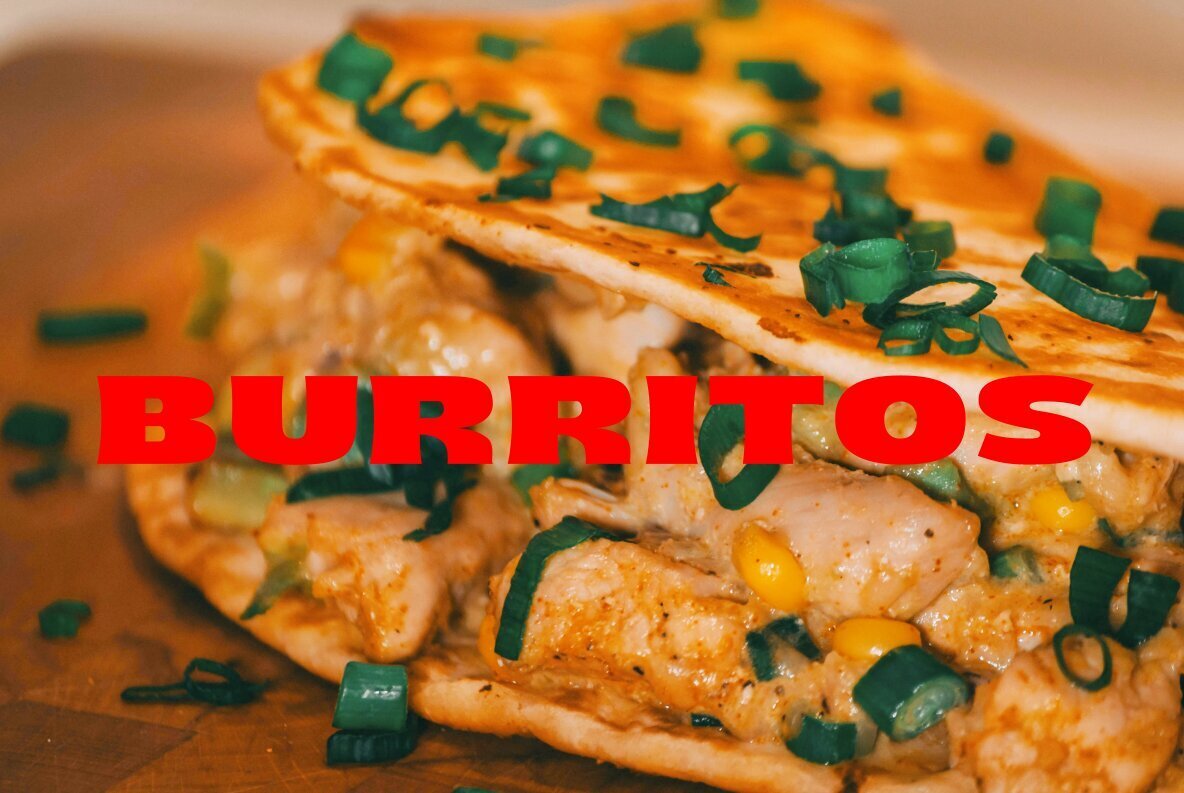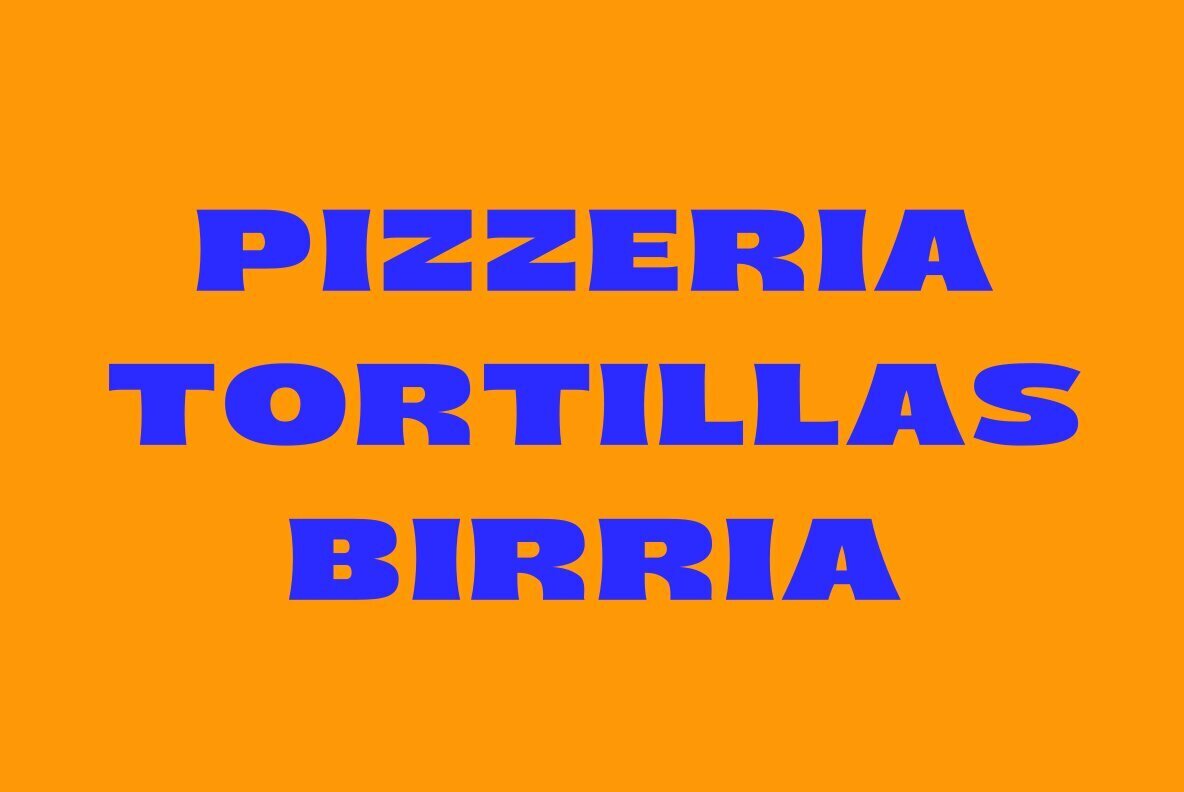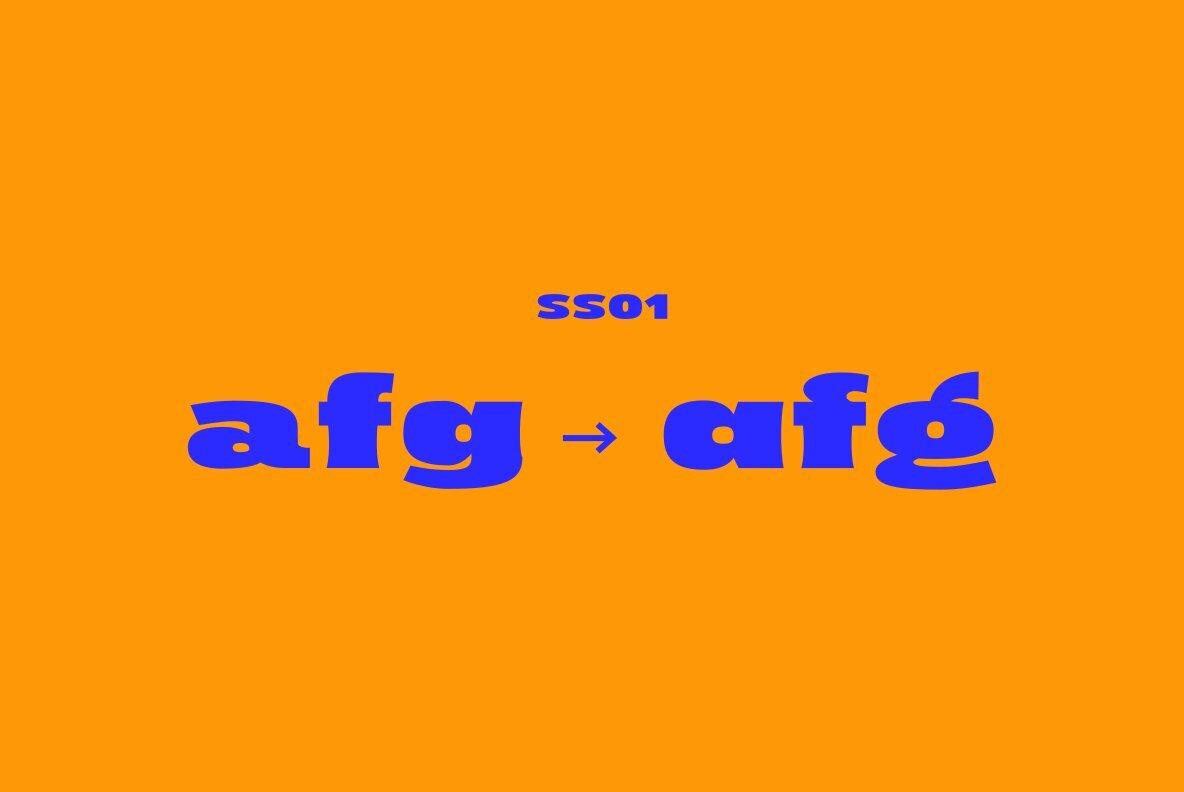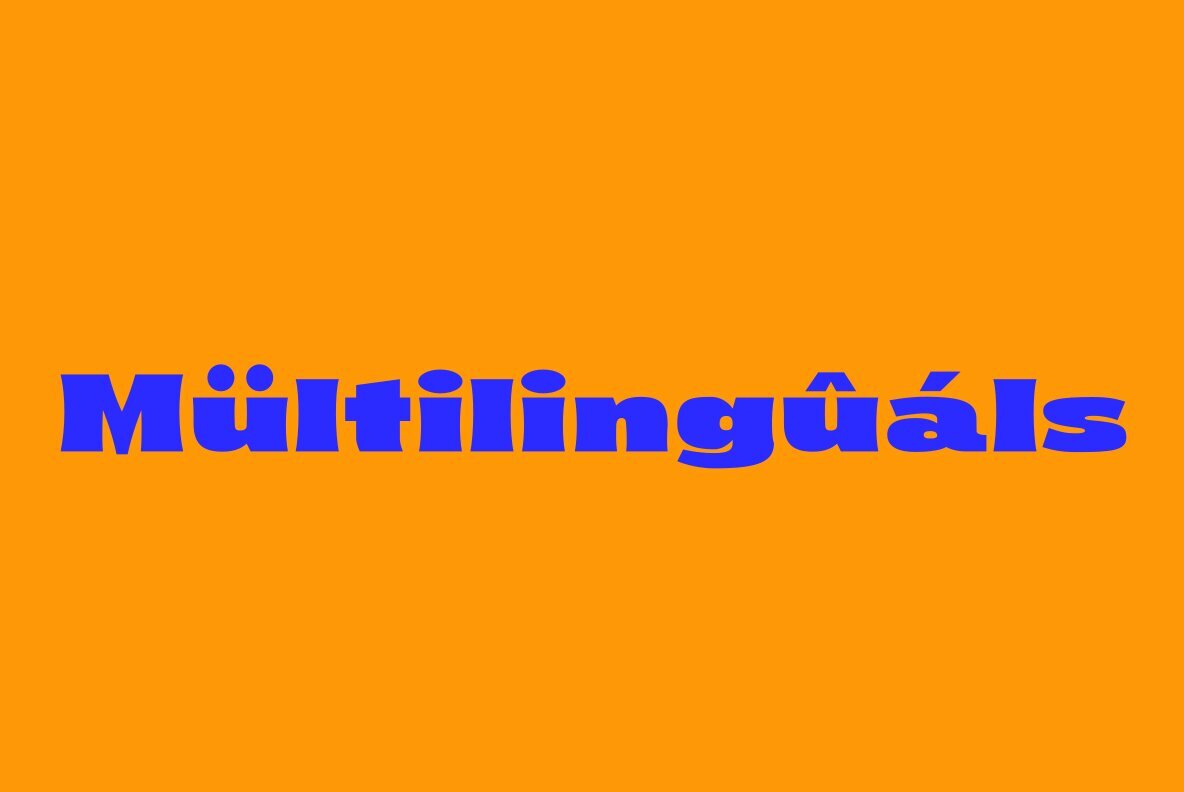
Bong Font
Bong Regular
Made with a retro touch with authentic values, Bong font is inspired by the typical retro style of graphic design. Suitable for use in graphic designs such as stickers, logos, posters and others.
Making a font I always pay attention to the quality and value of the font to create the best font. For me, fonts not only function as visual communication, but also as a form of expression that expresses the feelings that the creator of the font wants to convey. and my principle is to always prioritize quality...